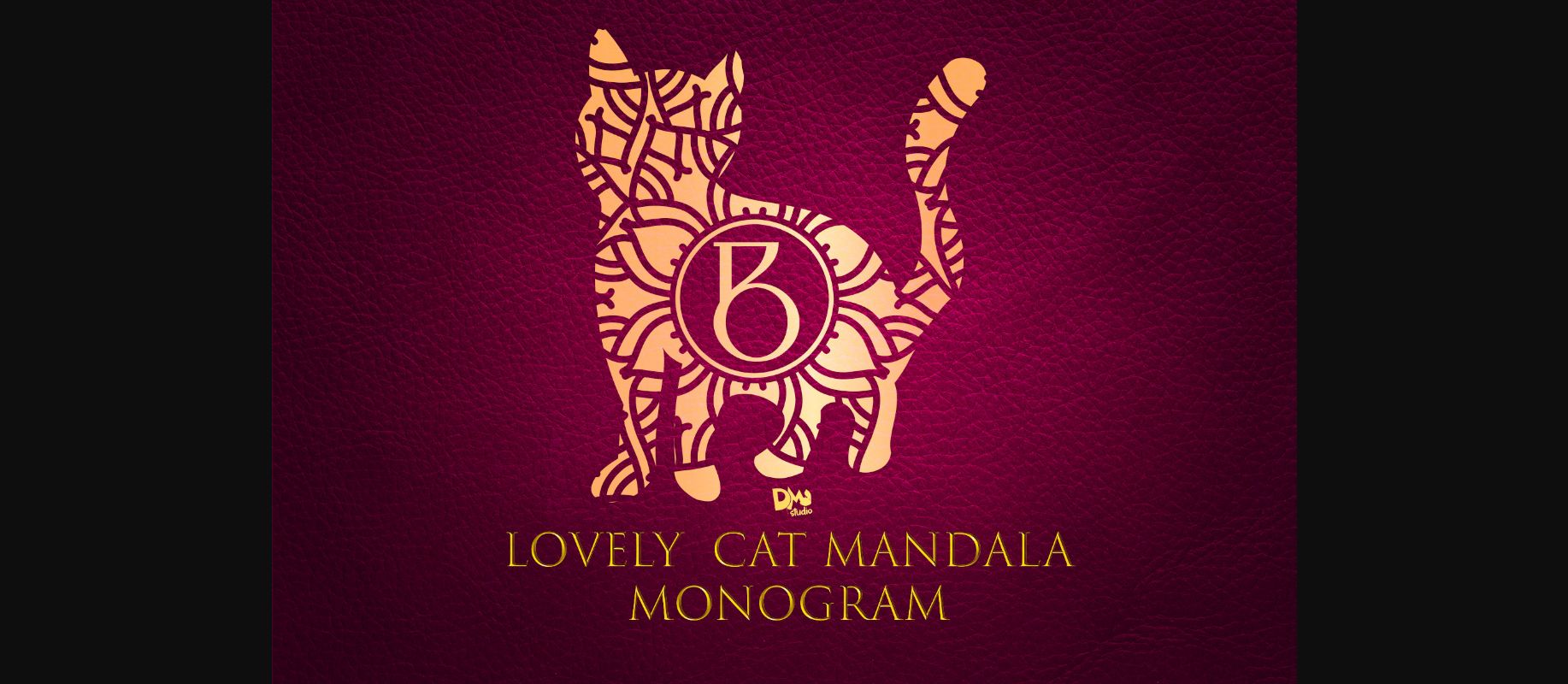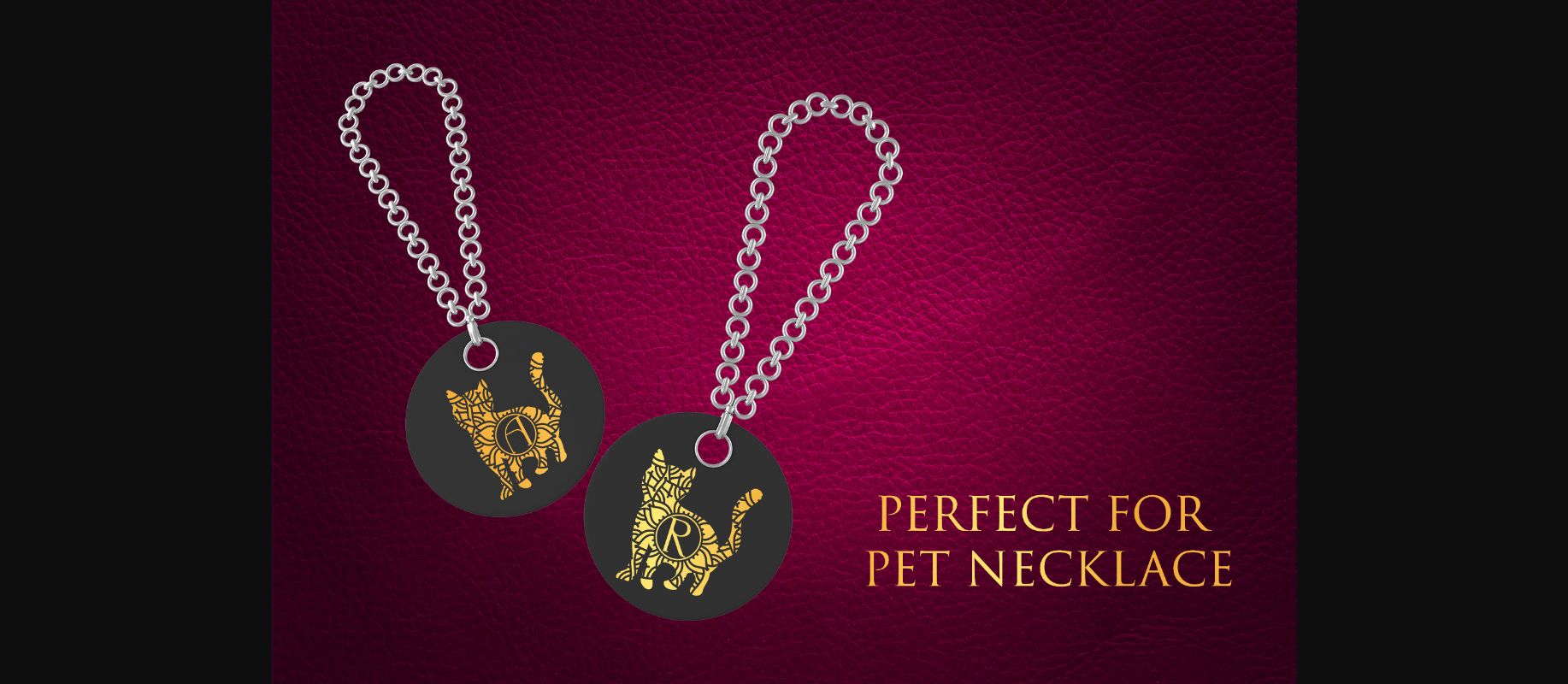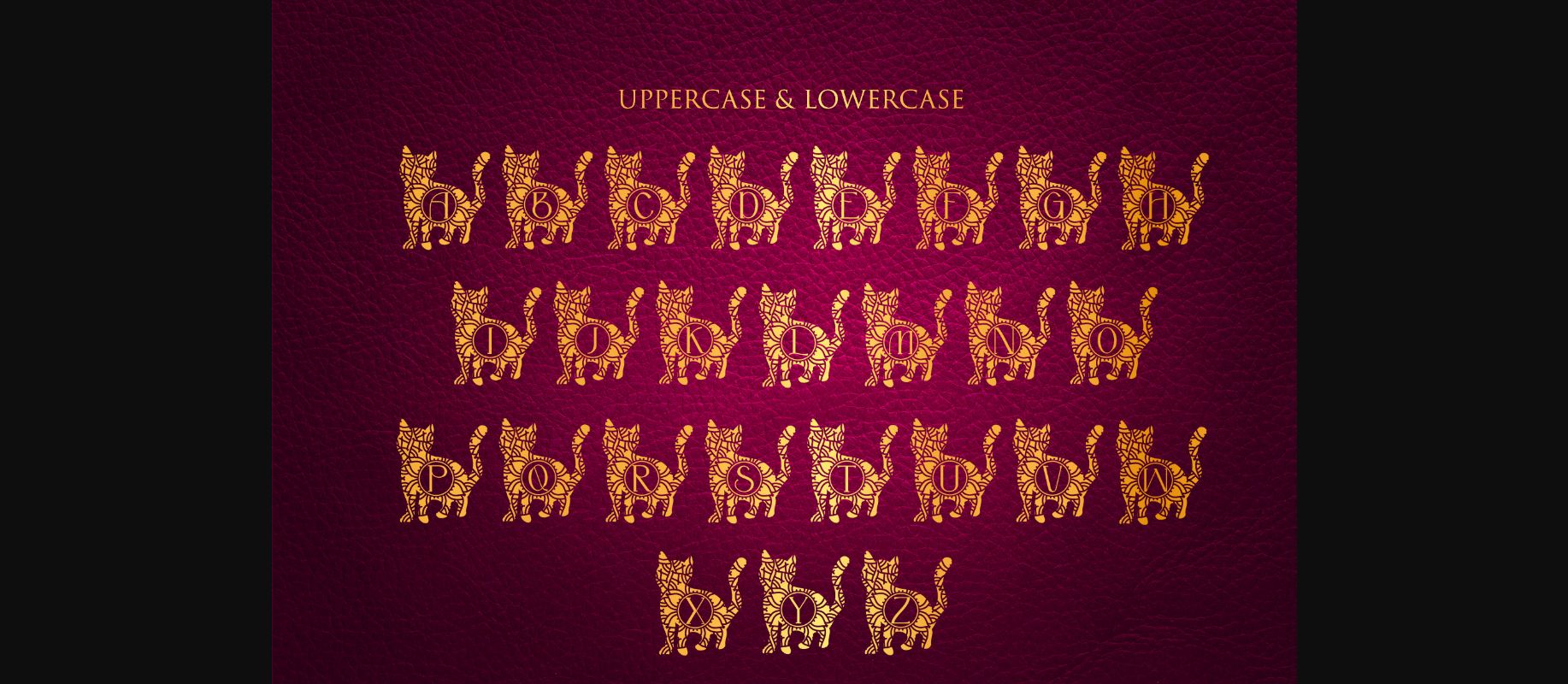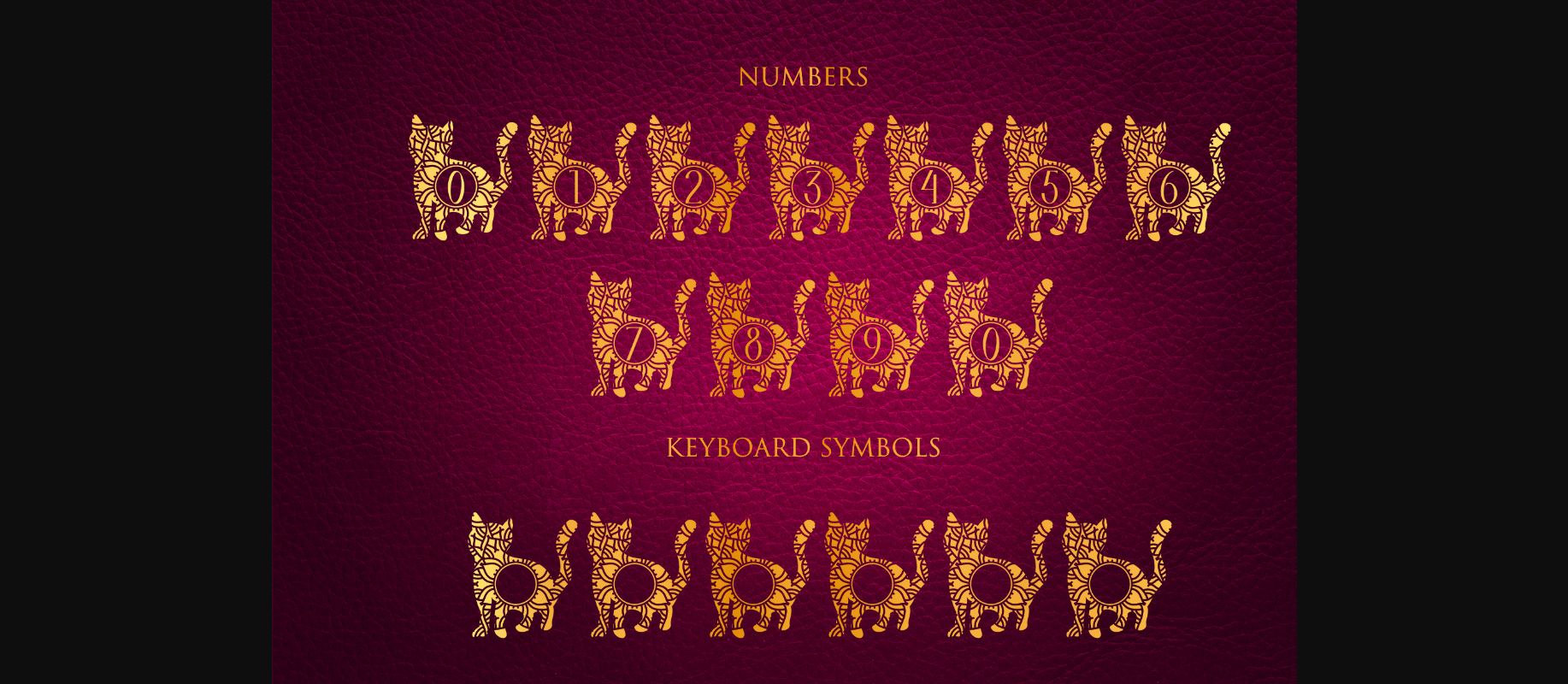
HomeDecorative FontsLovely Cat Mandala Monogram Font Decorative Fonts Lovely Cat Mandala Monogram Font FacebookXPinterestWhatsApp 1 of 6 ... Lovely Cat Mandala Monogram Font Poster 2... Lovely Cat Mandala Monogram Font Poster 3... Lovely Cat Mandala Monogram Font Poster 4... Lovely Cat Mandala Monogram Font Poster 5... Lovely Cat Mandala Monogram Font Poster 6... About Lovely Cat Mandala Monogram Font Lovely Cat Mandala Monogram is the ultimate cat-lovers font. This purrfect decorative typeface will enhance any creative project dedicated to kittens. DOWNLOAD NOW People also explored Liebe Finden Font Helavionitta Font Little Kitty Font Bagiku Font Mallinkha Font Ingkarmayat Font Witch Font Lorjuk Font Holliday 383 0 TagsLovely Cat Mandala Monogram Font Previous articleJoyful Cat Mandala Monogram FontNext articleHappy Cat Mandala Monogram Font LEAVE A REPLY Cancel reply Comment: Please enter your comment! Name:* Please enter your name here Email:* You have entered an incorrect email address! Please enter your email address here Website: Save my name, email, and website in this browser for the next time I comment. Personal Use Free Mold Papa Personal Use Free Read more about this font Mellgatha Personal Use Free Read more about this font Bebas Neue Font Personal Use Free Read more about this font Foo Personal Use Free Read more about this font BLOG Top 10 Handwritten Fonts That Elevate Your Designs Top 10 Handwritten Fonts That Will Elevate Your Designs Handwritten fonts bring a warm, personal touch to every creative project. Whether you're designing logos, invitations,... Where to Buy American Fonts Online in 2024 Transform Your Website: Elevate Your Typography with 7 Best Web Font Generators 5 Fonts That Will Dominate Design Trends in 2026